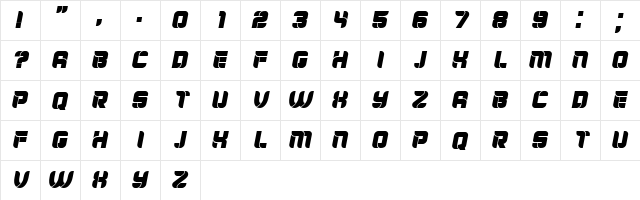
Mayor Italic
Design Context for Mayor Typeface
Mayor is a composed and adaptable typeface that performs quietly and consistently across a wide range of design contexts. The dynamic lean of this cut emphasises speed and emphasis in any layout.
Pro Tip: Use Mayor for emphasis, pull quotes, and subheadings where its slanted energy can add rhythm to the layout.